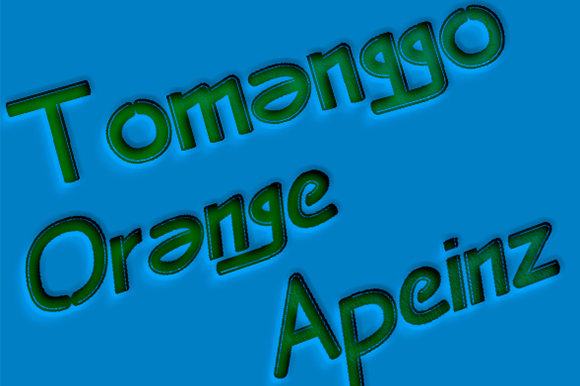
Introduction to Gemok Font
You’ve spent hours brainstorming the perfect concept for your next creative project, and finally, the moment of truth arrives – it’s time to bring your idea to life. As you start thinking about the design, you realize that the right font can make all the difference. That’s where the Gemok Font comes in – a simple yet authentic display font that’s perfect for adding a touch of elegance to your branding, product packaging, or any other design project.
Whether you’re a seasoned designer or just starting out, the Gemok Font is a valuable resource that can elevate your work to the next level. With its high-quality design and transparent background, this font is a must-have for any creative project. And the best part? It’s available for free download, making it an accessible design resource for designers of all levels.
Gemok Font
- Includes a comprehensive set of glyphs for detailed typography
- Designed to be scalable, suitable for both small and large-scale designs
- Resolution-independent, ensuring crisp and clear text in any size
Honest Review: Gemok Font
As a designer, I’m always on the lookout for high-quality design resources that can elevate my creative project. The Gemok Font caught my attention, and I decided to give it a try.
What works well: ✨ The Gemok Font has a clean and modern design that makes it perfect for a variety of projects. The font is highly customizable, and the transparent background makes it easy to use on any design.
Here are some of the key features that I love about the Gemok Font:
- Transparent background for easy use on any design
- Highly customizable for a unique look
What doesn’t work well: ⚠️ While the Gemok Font is great for most projects, it may not be suitable for projects that require a lot of bold or dramatic typography. Additionally, the font may not be as versatile as some other design resources.
Overall, I’m impressed with the Gemok Font and would definitely recommend it to other designers. It’s a great design resource that can add a touch of modernity to any creative project.
Tips for Getting the Most Out of Gemok Font
When using Gemok Font, be sure to use it on a transparent background to get the best results. You can also experiment with different font sizes and styles to add visual interest to your design. Additionally, consider combining Gemok Font with other design resources to create a unique and eye-catching look.
Gemok Font is a versatile design resource that can be used in a variety of creative projects, including logos, branding materials, and marketing materials. It’s also a great choice for presentations, documents, and other written content where a high-quality font is desired.